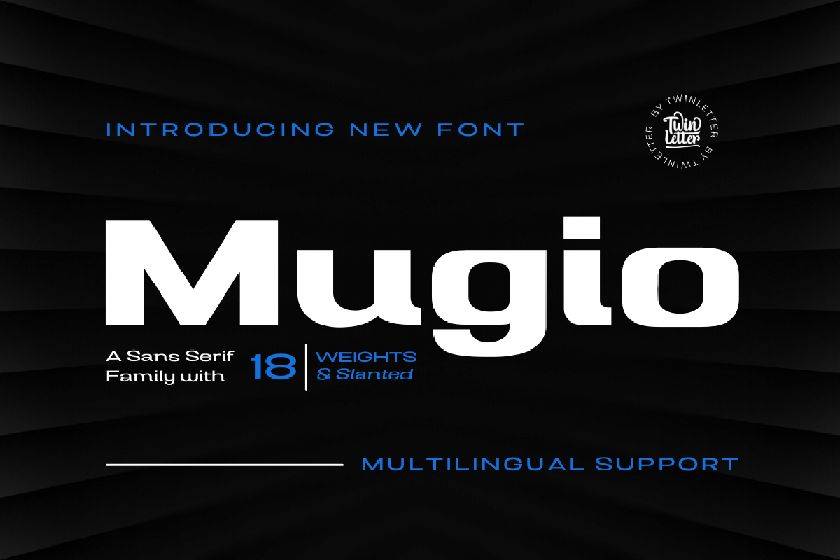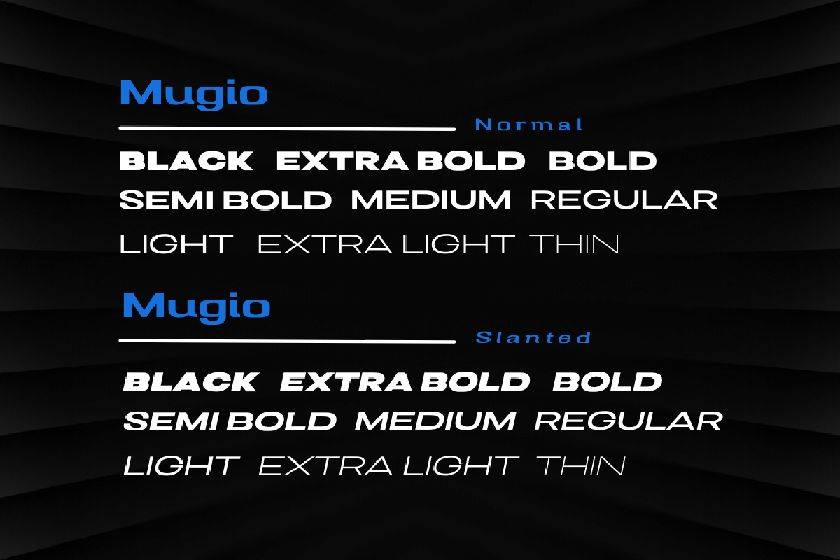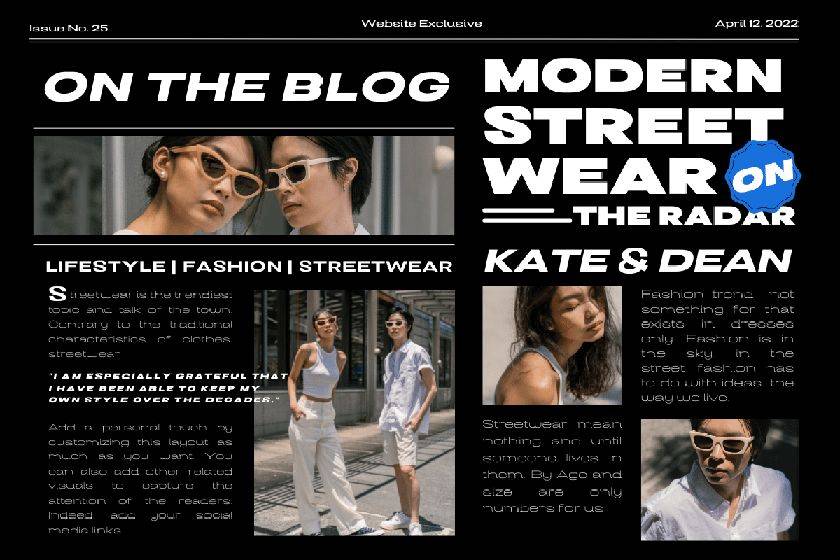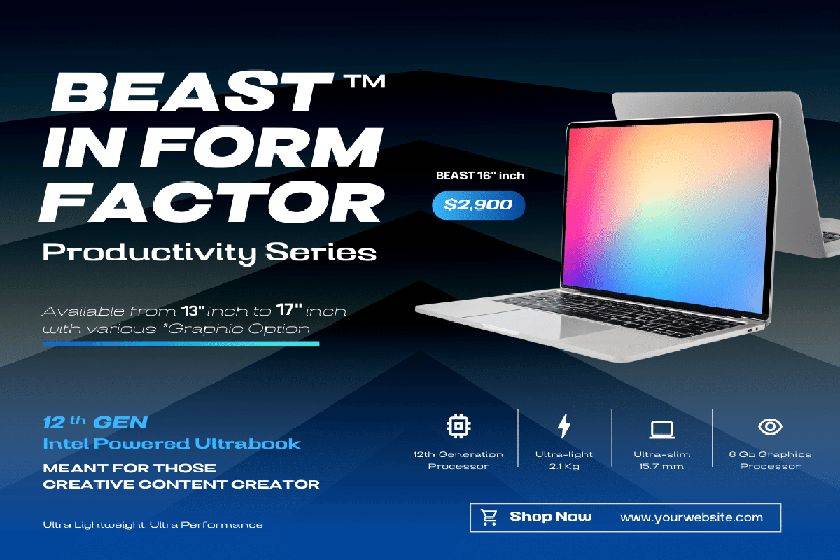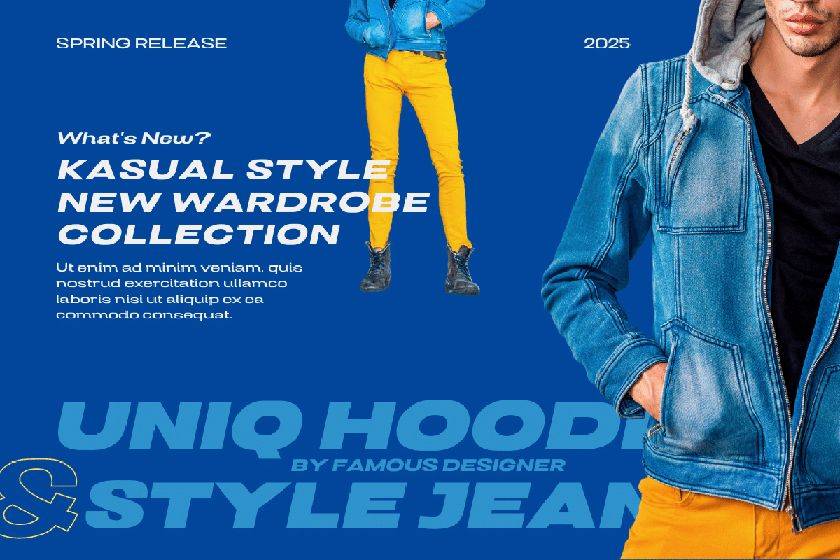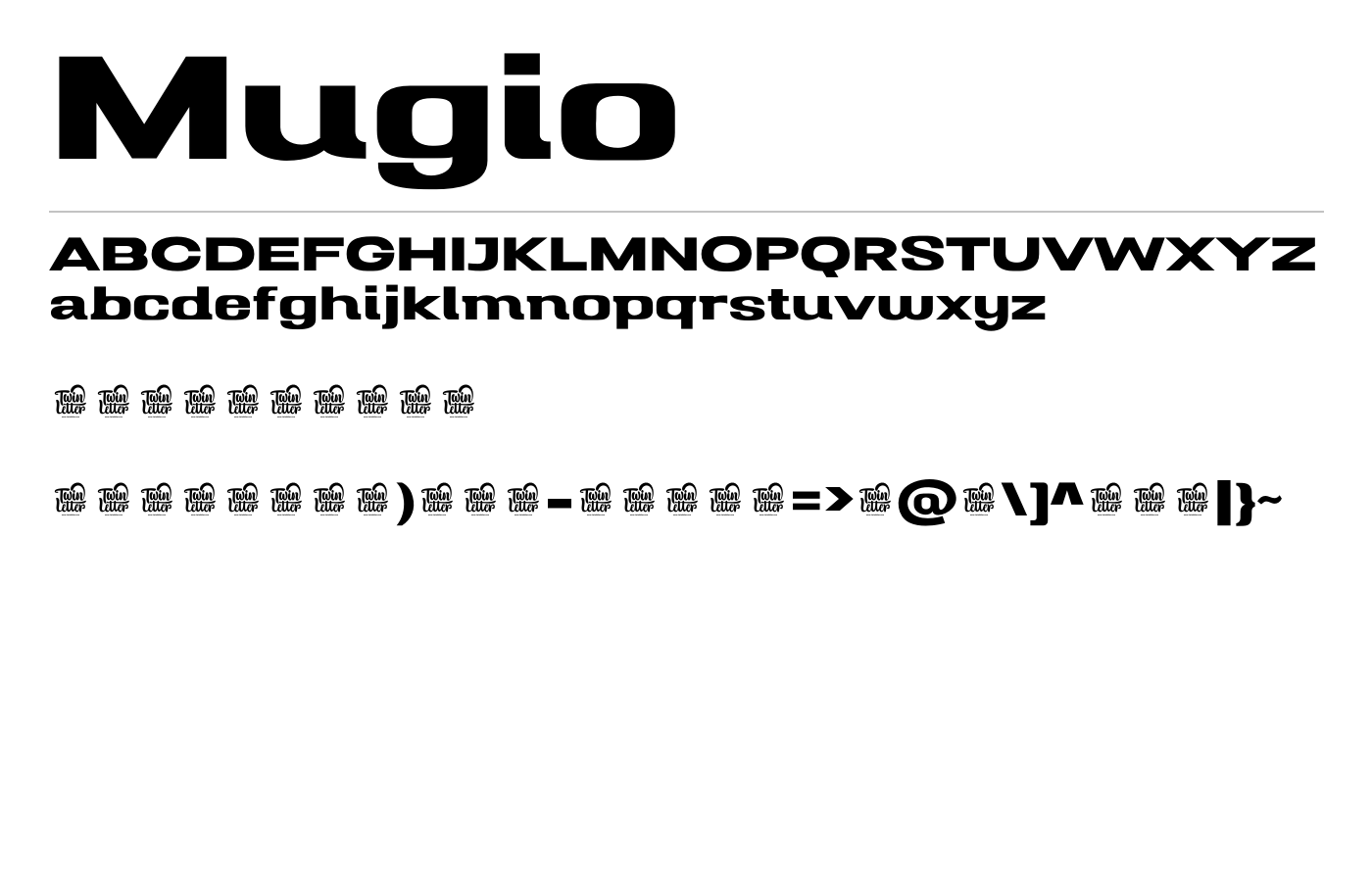
Mugio is a bold, geometric sans serif font with a strong and modern presence. Its thick, uniform strokes and slightly squared shapes give it a sturdy yet clean look, making it perfect for impactful headlines, branding, and editorial use where clarity and confidence are key. This font works well for fashion, tech, and contemporary design projects that require a bold and straightforward style.
| Font family | Mugio Font |
| Release date | 2022-03-18 |
| Designer | Hakim |